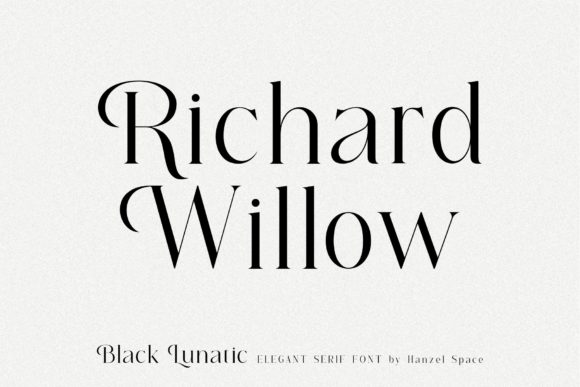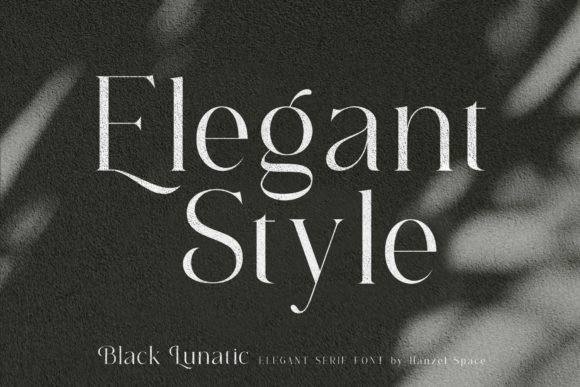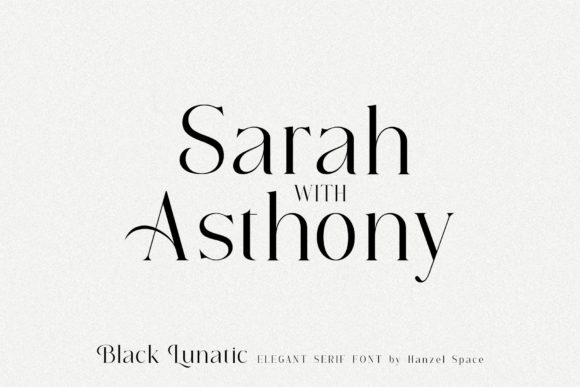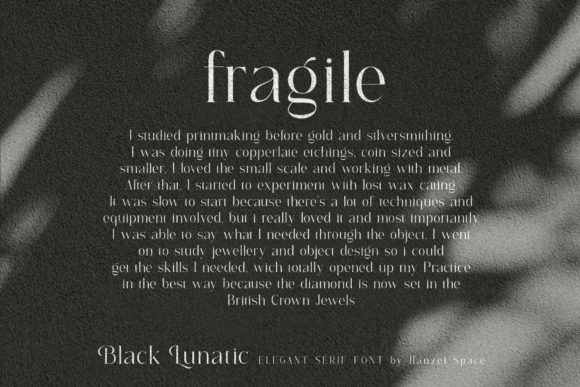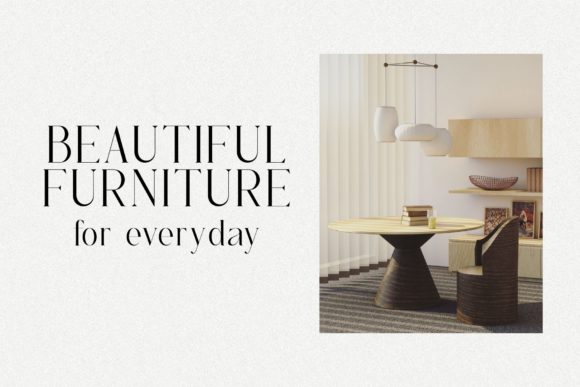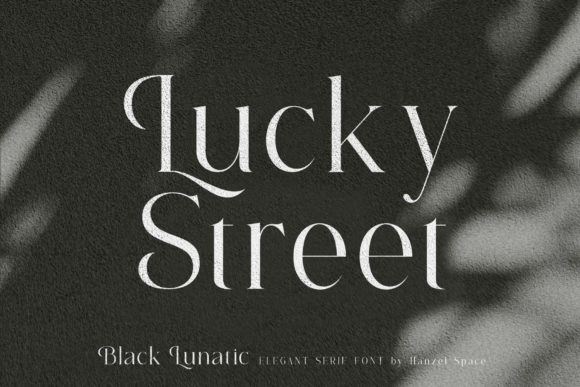
Introducing Black Lunatic Font: Elevate Your Designs with Elegance
In the world of typography, a font can make or break a design. It’s the foundation upon which your creative ideas are built, and it can either elevate or detract from the overall aesthetic. If you’re a designer or crafter looking for a font that exudes elegance and sophistication, look no further than Black Lunatic Font. This stunning serif font is incredibly versatile, making it perfect for a wide range of designs, from luxury branding to wedding stationery, and everything in between.
The Characteristics of Black Lunatic Font
Black Lunatic Font is a masterclass in typographic design. Its elegant serif lines and classic proportions make it a timeless choice that will never go out of style. The font’s versatility is one of its standout features, allowing it to be used in a variety of contexts, from formal and traditional to modern and creative. Whether you’re designing a logo, a brochure, or a social media graphic, Black Lunatic Font is sure to make your design shine.
One of the key benefits of Black Lunatic Font is its PUA (Private Use Area) encoding. This means that you can access all of the font’s glyphs and swashes with ease, giving you unparalleled creative control over your designs. With PUA encoding, you can effortlessly add flourishes and decorative elements to your text, taking your designs to the next level.
Why Designers and Crafters Love Black Lunatic Font
So, what sets Black Lunatic Font apart from other fonts on the market? Here are just a few reasons why designers and crafters love working with this elegant serif font:
- Unparalleled versatility: Black Lunatic Font can be used in a wide range of designs, from formal and traditional to modern and creative.
- Elegant and sophisticated: The font’s classic proportions and elegant serif lines make it perfect for luxury branding, wedding stationery, and other high-end designs.
- PUA encoded: With PUA encoding, you can access all of the font’s glyphs and swashes with ease, giving you maximum creative control over your designs.
- Easy to use: Black Lunatic Font is incredibly easy to use, even for designers who are new to working with serif fonts.
How to Use Black Lunatic Font in Your Designs
Now that we’ve covered the benefits of Black Lunatic Font, let’s talk about how to use it in your designs. Here are a few ideas to get you started:
- Logo design: Use Black Lunatic Font to create a stunning logo for your business or brand.
- Wedding stationery: Add a touch of elegance to your wedding stationery with Black Lunatic Font.
- Luxury branding: Use Black Lunatic Font to create a high-end brand identity that exudes sophistication and style.
- Social media graphics: Add a touch of elegance to your social media graphics with Black Lunatic Font.
Tips and Tricks for Getting the Most Out of Black Lunatic Font
To get the most out of Black Lunatic Font, here are a few tips and tricks to keep in mind:
- Experiment with different sizes: Don’t be afraid to experiment with different font sizes to find the perfect fit for your design.
- Play with swashes and glyphs: Use the font’s PUA encoding to add flourishes and decorative elements to your text.
- Pair it with other fonts: Black Lunatic Font pairs beautifully with other serif and sans-serif fonts, so don’t be afraid to experiment with different font combinations.
In conclusion, Black Lunatic Font is an elegant serif font that is sure to elevate your designs to the highest levels. With its unparalleled versatility, PUA encoding, and elegant design, it’s the perfect choice for designers and crafters who want to add a touch of sophistication to their work. Whether you’re designing a logo, wedding stationery, or social media graphics, Black Lunatic Font is sure to make your designs shine.